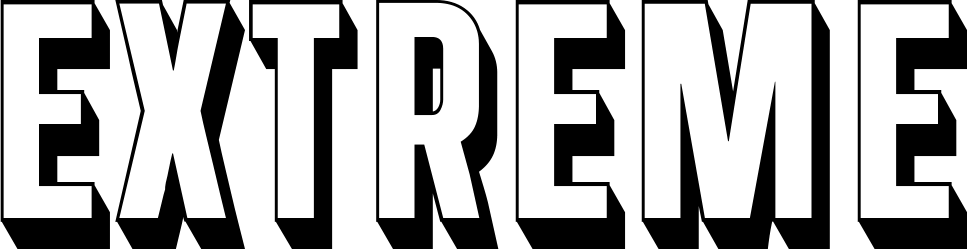
Extreme Font
We are bringing you another sans serif font today! Extreme is a typeface with two font designs in 3D and outline styles. It will give a powerful and serious vibe to your texts. You can use it for scientific books and movie titles, channel banners, personal blogs, and event flyers. Please note that this retro block font only supports capital characters.